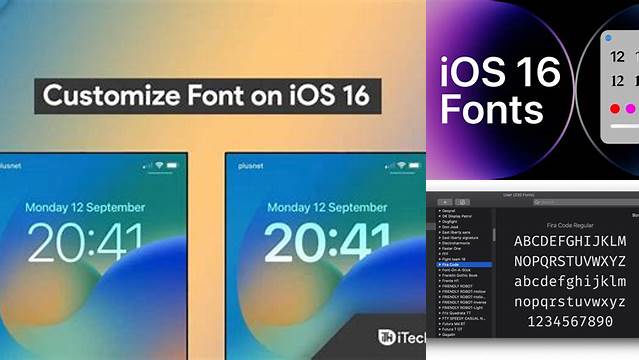
Why iOS 16 Fonts Are So Popular
Before we dive into the how-to, let's understand why iOS 16 fonts are so desirable. Apple has always been known for its attention to detail in design, and typography is no exception. The default system font in iOS 16, San Francisco, is a masterpiece of clarity and readability. Its clean lines, balanced proportions, and subtle curves contribute to a visually pleasing and user-friendly experience. For many, the San Francisco font family embodies sophistication and modernity, making it a sought-after element for personalizing their devices.
The appeal extends beyond mere aesthetics. The San Francisco font family is designed for optimal readability across various screen sizes and resolutions. This is crucial for comfortable long-term use, reducing eye strain and enhancing the overall user experience. The font's versatility also makes it suitable for a wide range of applications, from simple text messages to complex documents. So, whether you're a student, a professional, or simply someone who enjoys a visually appealing interface, the iOS 16 font can significantly improve your daily interaction with your Android device. Furthermore, the popularity of iOS as a platform has created a certain cachet around its design elements. By adopting the iOS 16 font on your Android device, you're subtly signaling an appreciation for sophisticated design and attention to detail.
- Font Installer Apps: Some font installer apps, like HiFont and iFont, have built-in font libraries that include iOS-style fonts. However, be sure to read reviews and check the app's permissions before installing it.
Important Considerations:
- File Format: Ensure the font files are in TTF (TrueType Font) or OTF (OpenType Font) format, as these are the most commonly supported formats on Android.
- Font Family: The iOS 16 font family, San Francisco, includes various weights and styles (e.g., Regular, Bold, Italic). Download the complete font family for a consistent and authentic look.
- License: Check the font's license to ensure you're allowed to use it for your intended purpose. Some fonts are free for personal use but require a commercial license for business applications.
Installation Methods: A Step-by-Step Guide
Once you've downloaded the iOS 16 font files, the next step is to install them on your Android device. There are several methods you can use, depending on your device, operating system version, and technical expertise. Here are three common methods:
Method 1: Using a Font Installer App
This is the easiest and most straightforward method for most users. Font installer apps simplify the installation process and provide a user-friendly interface for managing your fonts.
Installing iOS 16 fonts on your Android device is a great way to personalize your device and enjoy a more visually appealing user experience. By following the steps outlined in this guide, you can easily transform your Android device with the sleek and modern typography of iOS. Just remember to download fonts from trusted sources, choose the installation method that suits your technical expertise, and proceed with caution. With a little effort, you can achieve the iOS aesthetic you desire on your Android device. Happy customizing!